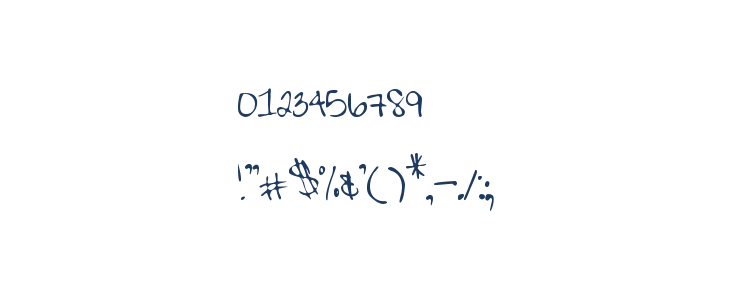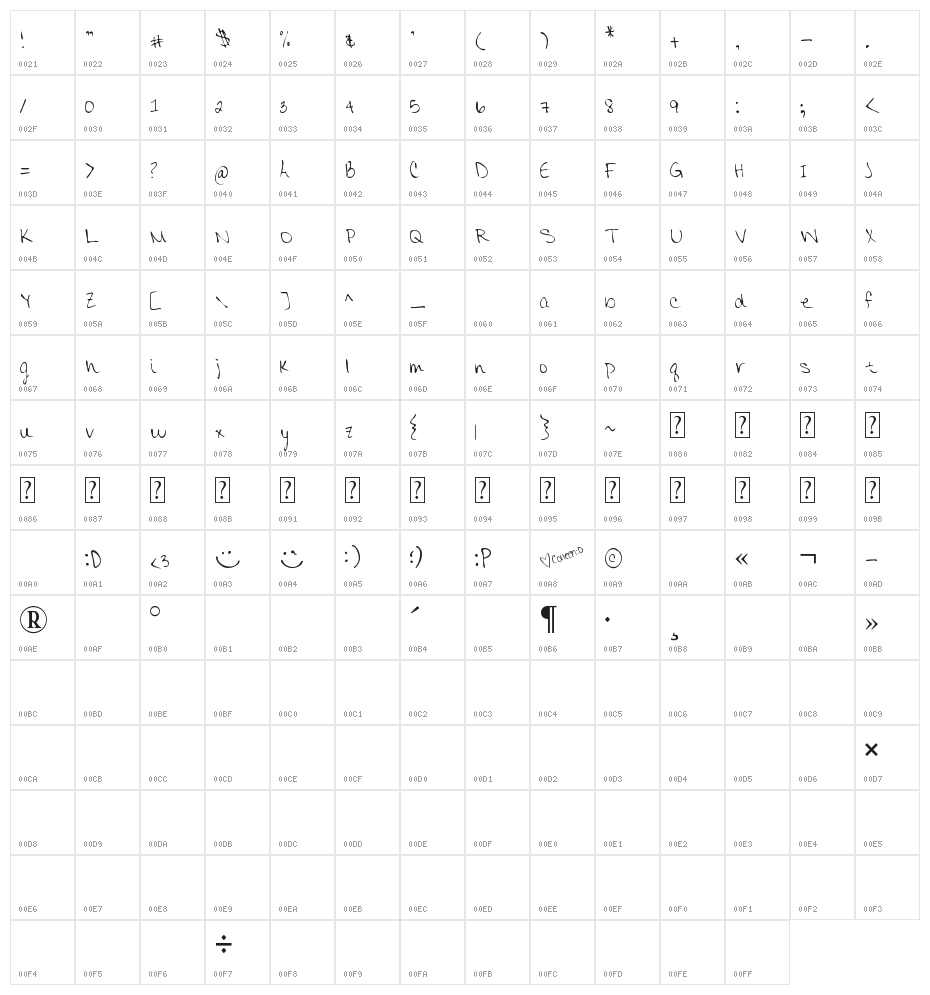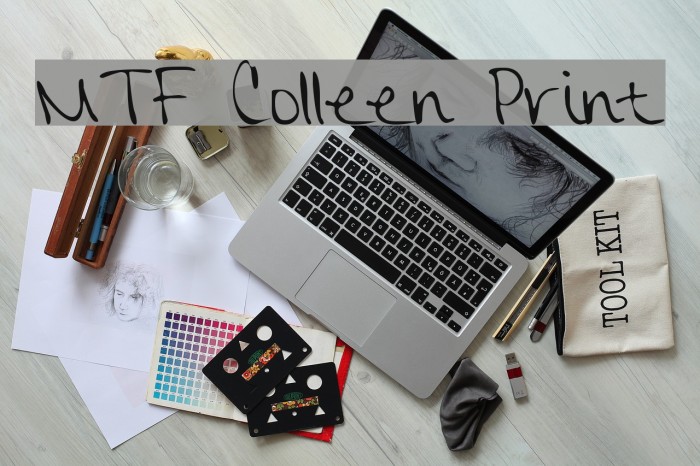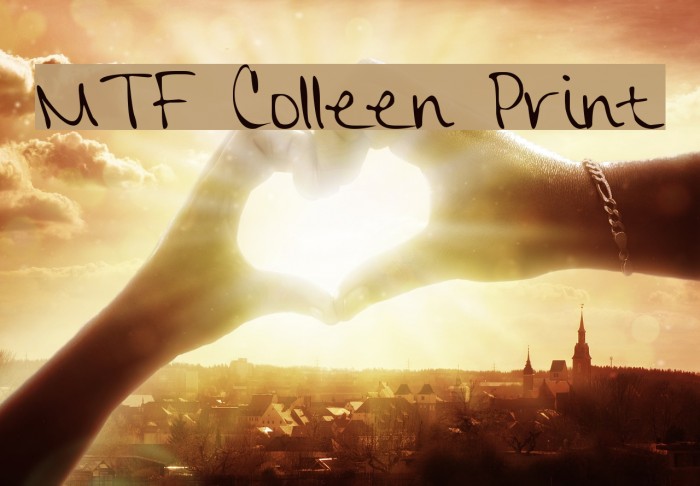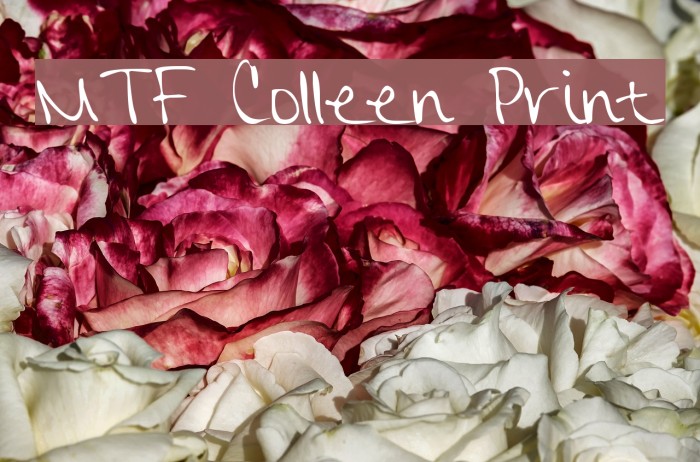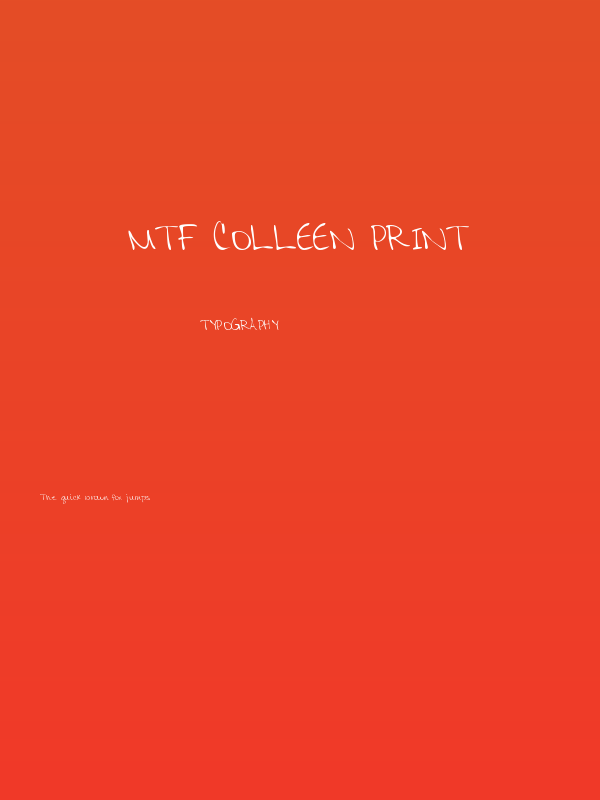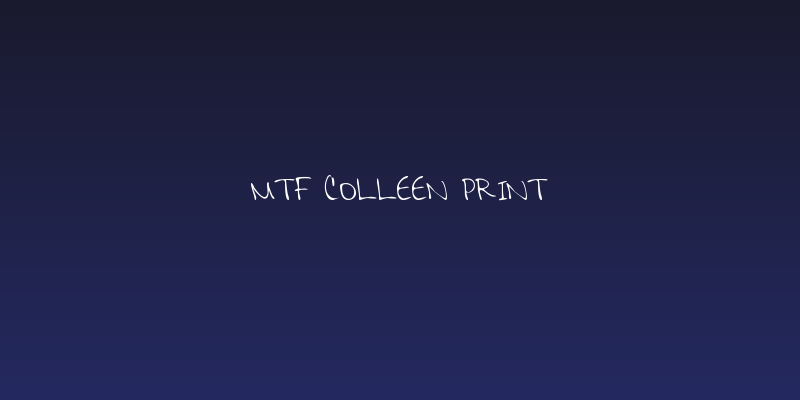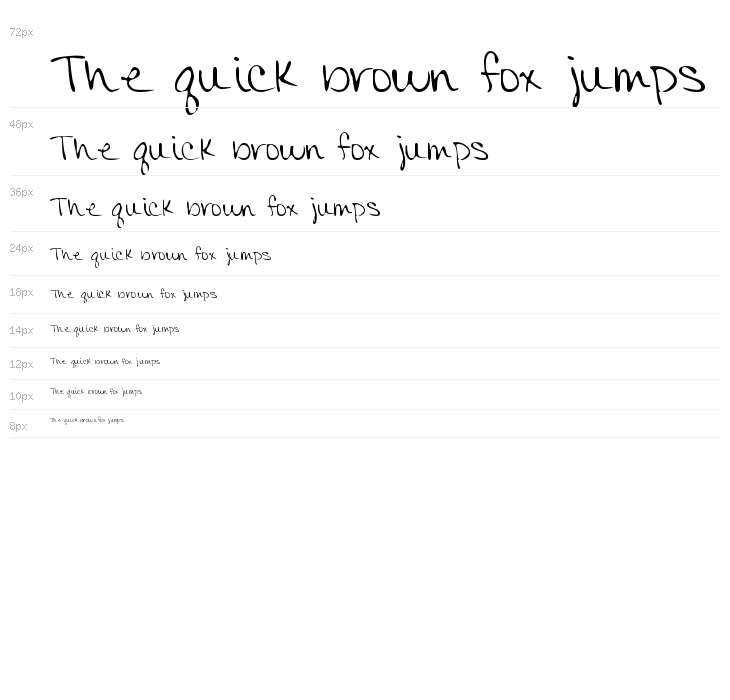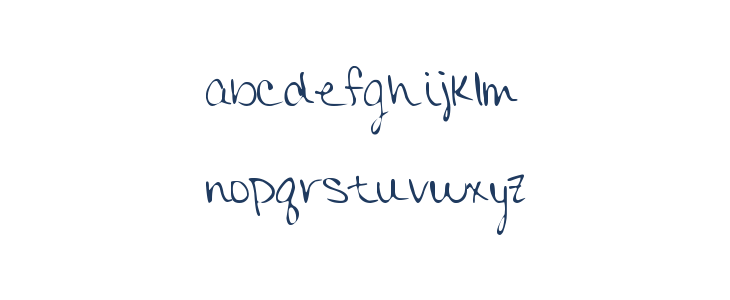
MTF Colleen Print Font
MTF Colleen Print Description
This font exhibits a playful and casual handwritten style, characterized by its fluid and informal strokes. The letters are slightly slanted, giving a sense of movement and spontaneity. The uppercase letters are bold and distinct, while the lowercase letters maintain a consistent flow, enhancing readability. The numbers and special characters are crafted with the same playful touch, making them suitable for creative and informal contexts. The overall appearance is friendly and approachable, ideal for projects that require a personal or whimsical touch.
| Proposed Projects | Ideal for greeting cards, invitations, personal blogs, and creative branding. |